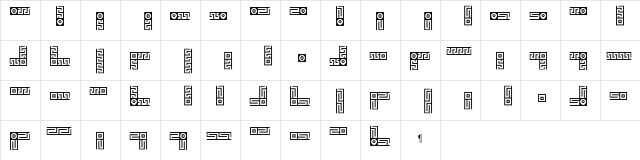
Borders Zues
Design Context for Borders Typeface
Borders is a composed and adaptable typeface that performs quietly and consistently across a wide range of design contexts.